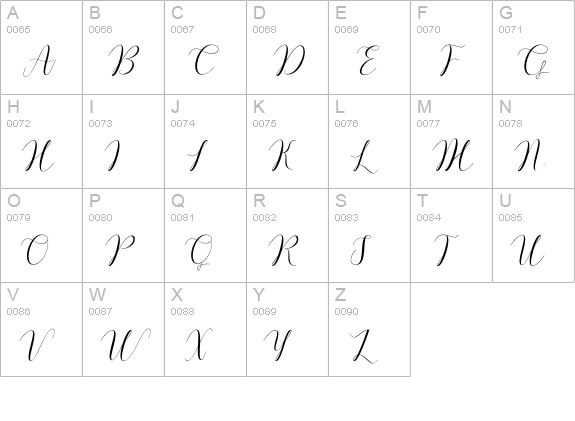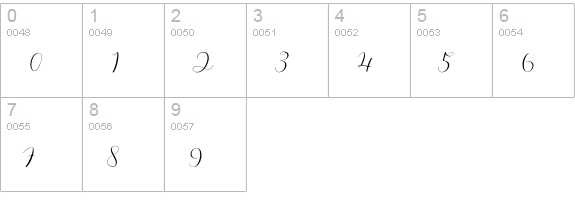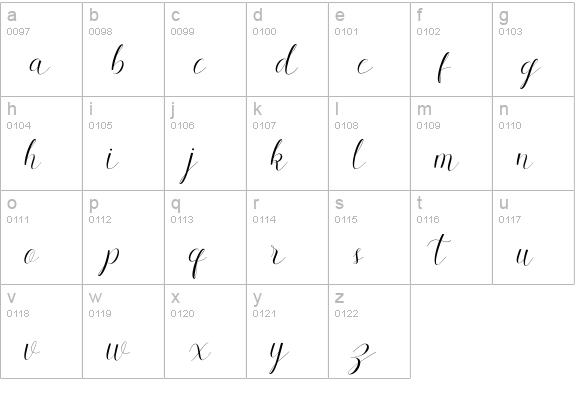
Dewi Script Font Details
Dewi Script font is a beautifully crafted typeface that exudes elegance and sophistication. With its flowing lines and delicate curves, this script font is perfect for adding a touch of charm to any design project. Whether you're creating invitations, logos, or branding materials, Dewi Script font will elevate your work to the next level. What's even better is that Dewi Script font is completely free to download at FontsMarket.com. Yes, you read that right - you can access this exquisite font at no cost, making it a must-have addition to your font collection. So why wait? Download Dewi Script font today and bring a touch of class to your designs!